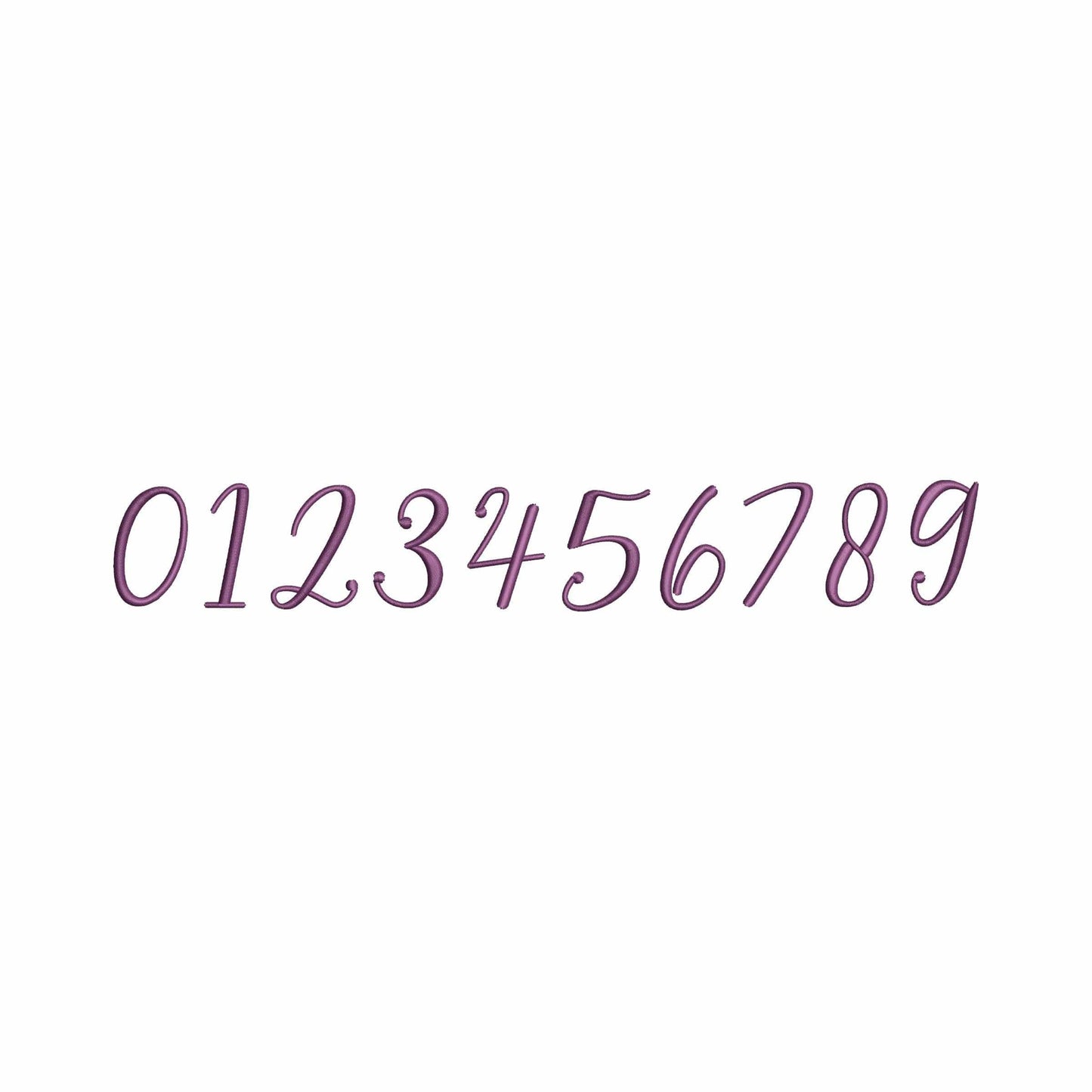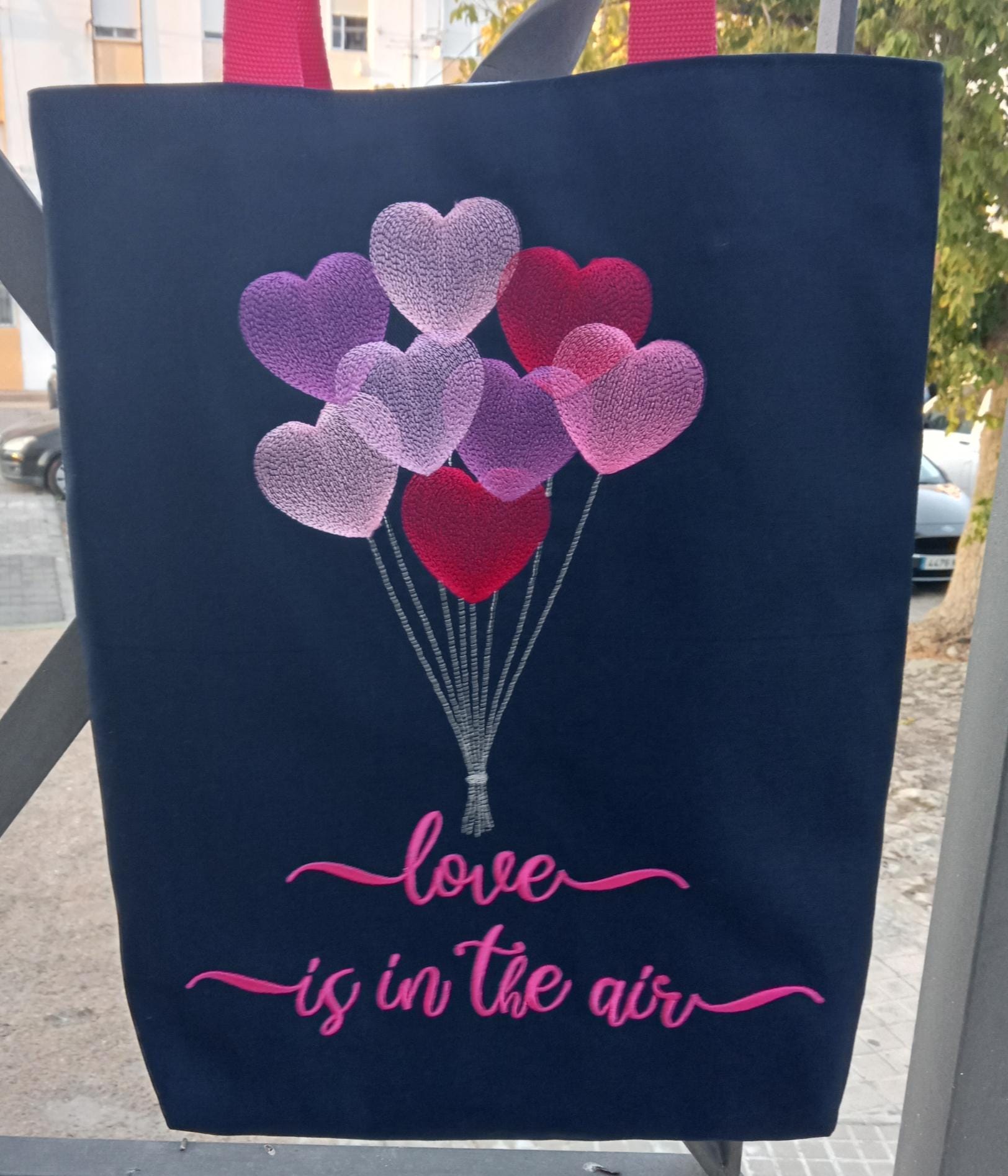
Lovely with tails - Embroidery font
• Included: A-Z (uppercase), a-z(lowercase), 0-9 (numbers), left and right tails
This machine embroidery font works well for name shirts, towels, keepsakes, gifts, and sweet feminine embroidery.